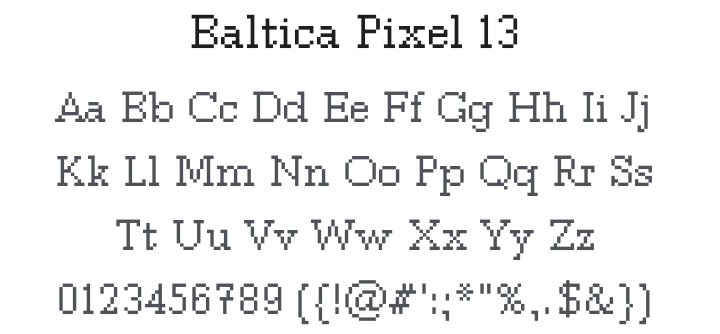
Baltica Pixel 13 Font
About Baltica Pixel 13
Baltica Pixel 13 is a pixel font based on design and legacy black&white hinting of Baltica typeface by Paratype for screen size of 13 pixels per em. Uppercase characters are 9 pixels high and the x-height is 6 pixels. It is perfect either for contemporary and experimental graphic design or for cross-stitching and knitting patterns.